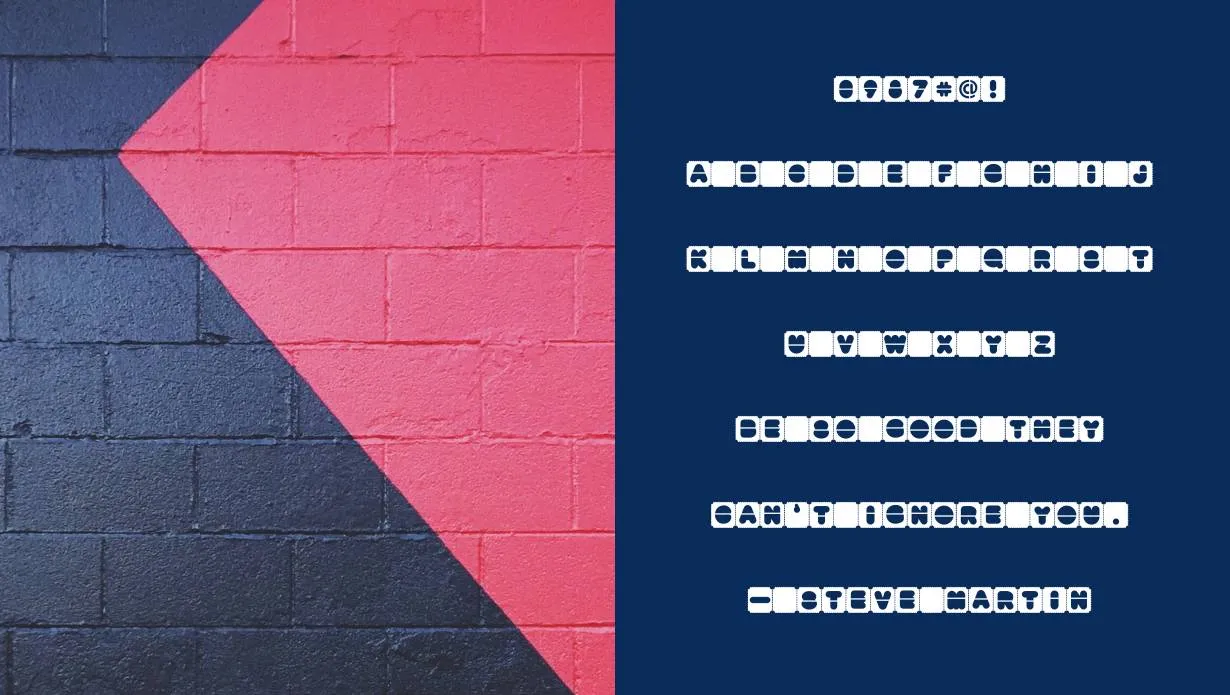
TicketMaster Font is a bold and dynamic typeface that captures the excitement and energy of live events.
Inspired by the typography commonly seen on event tickets, TicketMaster Font features bold letterforms and sharp edges, making it perfect for projects related to concerts, sports games, or any event that requires ticketing.
TicketMaster Font adds a touch of professionalism and excitement to the typography, ensuring that your event stands out with its bold and impactful style.